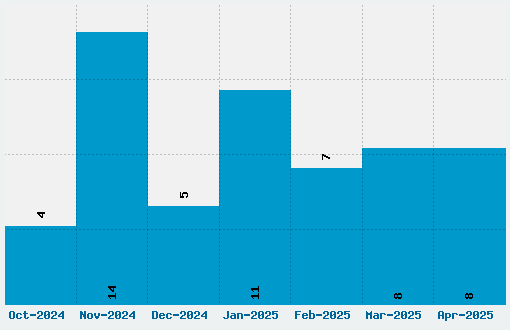
Moms Typewriter Font
Font Name:Moms Typewriter
Category:Fancy > Typewriter
There's really not a lot to tell about this font. I just typed the whole alphabet on my mom's old typewriter, scaned it, and made the font.